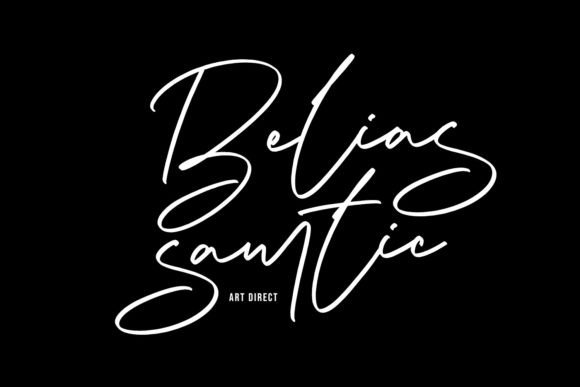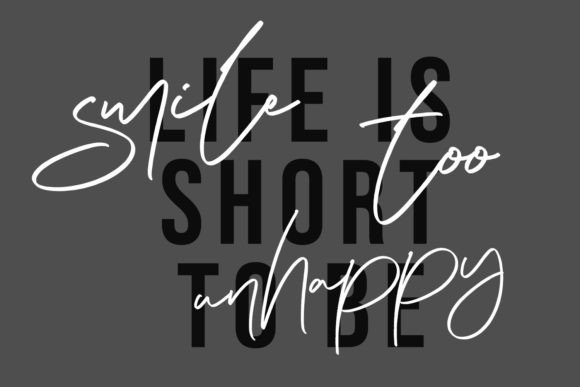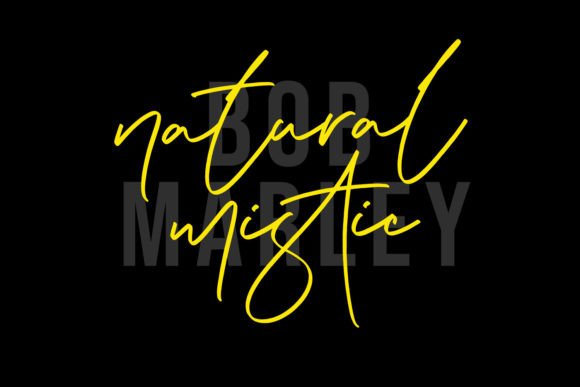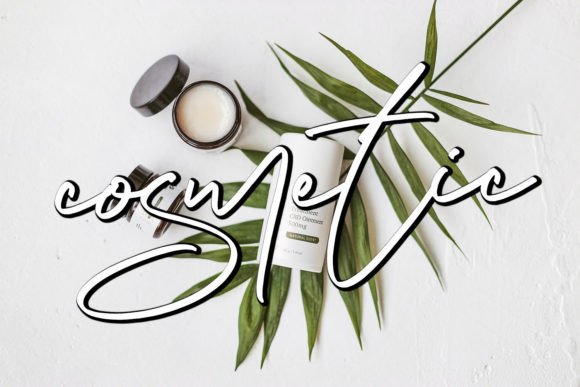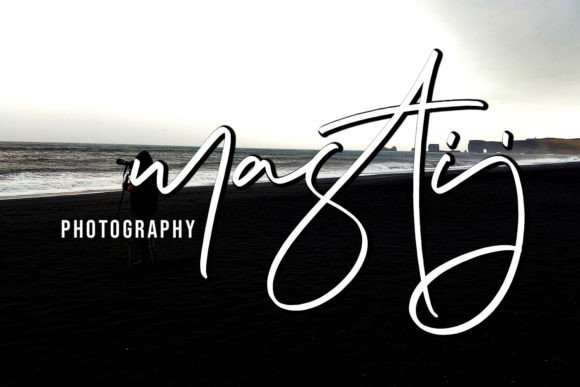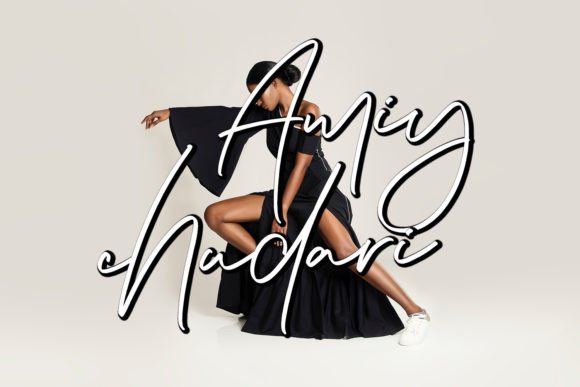
Cosmac Signature: The Ultimate Handwritten Script Font for Creative Projects
Are you tired of using the same old fonts for your design projects? Look no further than Cosmac Signature, a stunning handwritten script font that is sure to take your work to the next level. With its bold, sharp edges, fun character, and ligatures and alternates, Cosmac Signature is the perfect choice for designers and crafters looking to add a touch of personality to their projects.
What Sets Cosmac Signature Apart
Cosmac Signature is not just another script font. Its unique blend of bold, sharp edges and fluid, handwritten strokes makes it stand out from the crowd. The font features a range of fun and playful characters, including ligatures and alternates, which allow you to add an extra layer of creativity to your work. Whether you’re designing a logo, creating a social media graphic, or working on a book title, Cosmac Signature is the perfect choice.
Multilingual Support
One of the best things about Cosmac Signature is its multilingual support. With the ability to support over 100 languages, you can use this font for projects that require text in multiple languages. Whether you’re working on a global brand campaign or creating a multilingual website, Cosmac Signature has got you covered.
Perfect for a Range of Design Projects
Cosmac Signature is a versatile font that can be used for a wide range of design projects. Its bold, eye-catching strokes make it perfect for:
- Logo design: Create a stunning logo that stands out from the crowd with Cosmac Signature.
- Social media graphics: Add a touch of personality to your social media graphics with this fun and playful font.
- Movie titles: Create a blockbuster movie title with Cosmac Signature’s bold, cinematic strokes.
- Book titles: Add a touch of elegance and sophistication to your book titles with this beautiful script font.
- Short and long text: Whether you’re working on a short text or a long letter, Cosmac Signature is the perfect choice.
Pairing Cosmac Signature with Other Fonts
Cosmac Signature is a versatile font that can be paired with a range of other fonts to create a stunning visual effect. For a classic look, pair it with a sans serif font, such as Arial or Helvetica. For a more elegant look, pair it with a serif font, such as Times New Roman or Garamond. The possibilities are endless!
Tips for Using Cosmac Signature
Here are a few tips for getting the most out of Cosmac Signature:
- Experiment with different font sizes: Cosmac Signature looks great in a range of font sizes, from large display fonts to smaller body text.
- Play with ligatures and alternates: Add an extra layer of creativity to your work by experimenting with the font’s ligatures and alternates.
- Use it as a display font: Cosmac Signature is perfect for use as a display font, making it ideal for headlines, titles, and other eye-catching text.
Cosmac Signature is a stunning handwritten script font that is sure to take your design projects to the next level. With its bold, sharp edges, fun character, and multilingual support, it’s the perfect choice for designers and crafters looking to add a touch of personality to their work. Whether you’re working on a logo, social media graphic, movie title, or book title, Cosmac Signature is the ultimate font for creative projects.